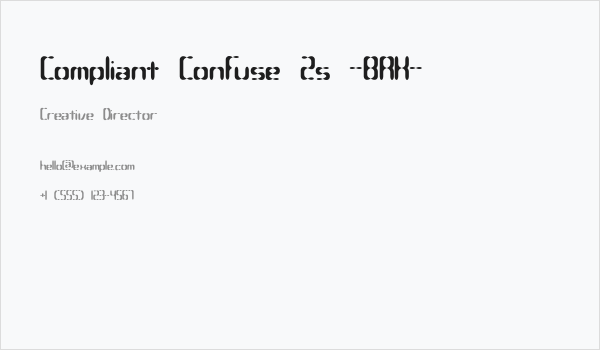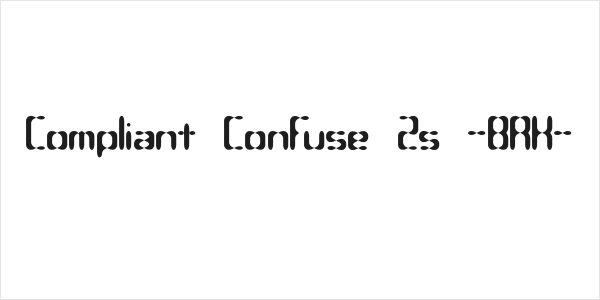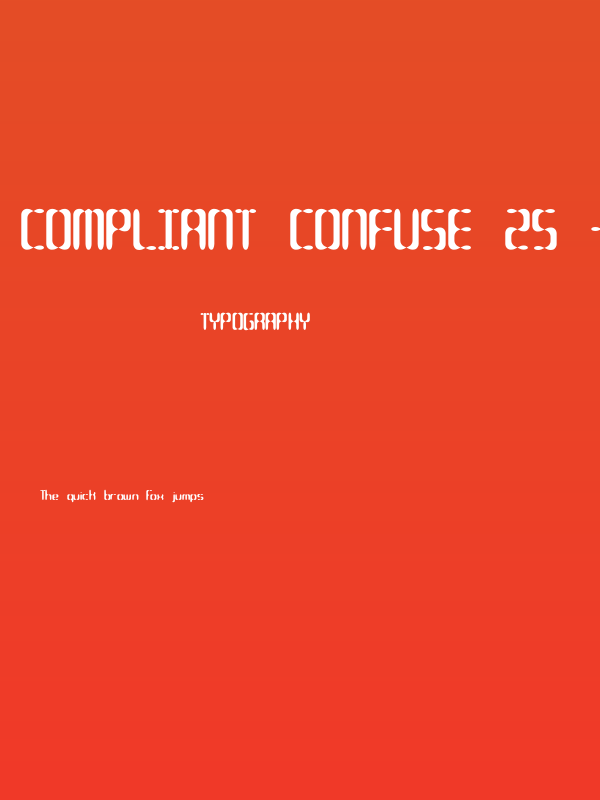
Compliant Confuse 2s -BRK- Font
Compliant Confuse 2s -BRK- Description
This font features a unique and modern design with a playful and experimental style. The characters are composed of bold, rounded strokes with distinct gaps, creating a dotted or segmented appearance. This gives the font a futuristic and digital feel, reminiscent of LED displays or pixelated graphics. The uppercase and lowercase letters maintain a consistent style, with the same segmented design applied to numbers and special characters. The overall look is bold and eye-catching, making it suitable for creative and unconventional projects.
| Use Case | Logos, Posters, Headlines |
| Proposed Projects | Ideal for digital art, tech-themed posters, futuristic branding, or any project seeking a modern and playful touch. |